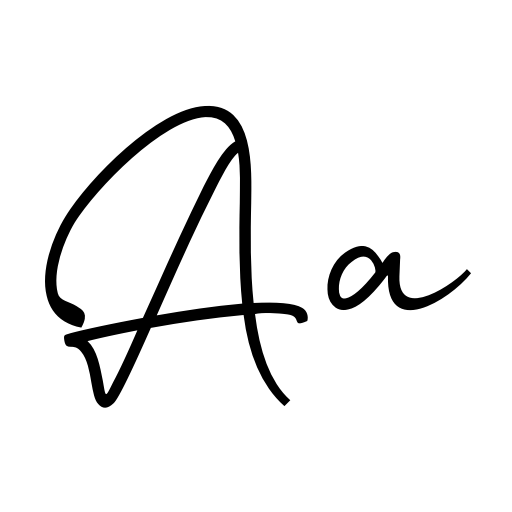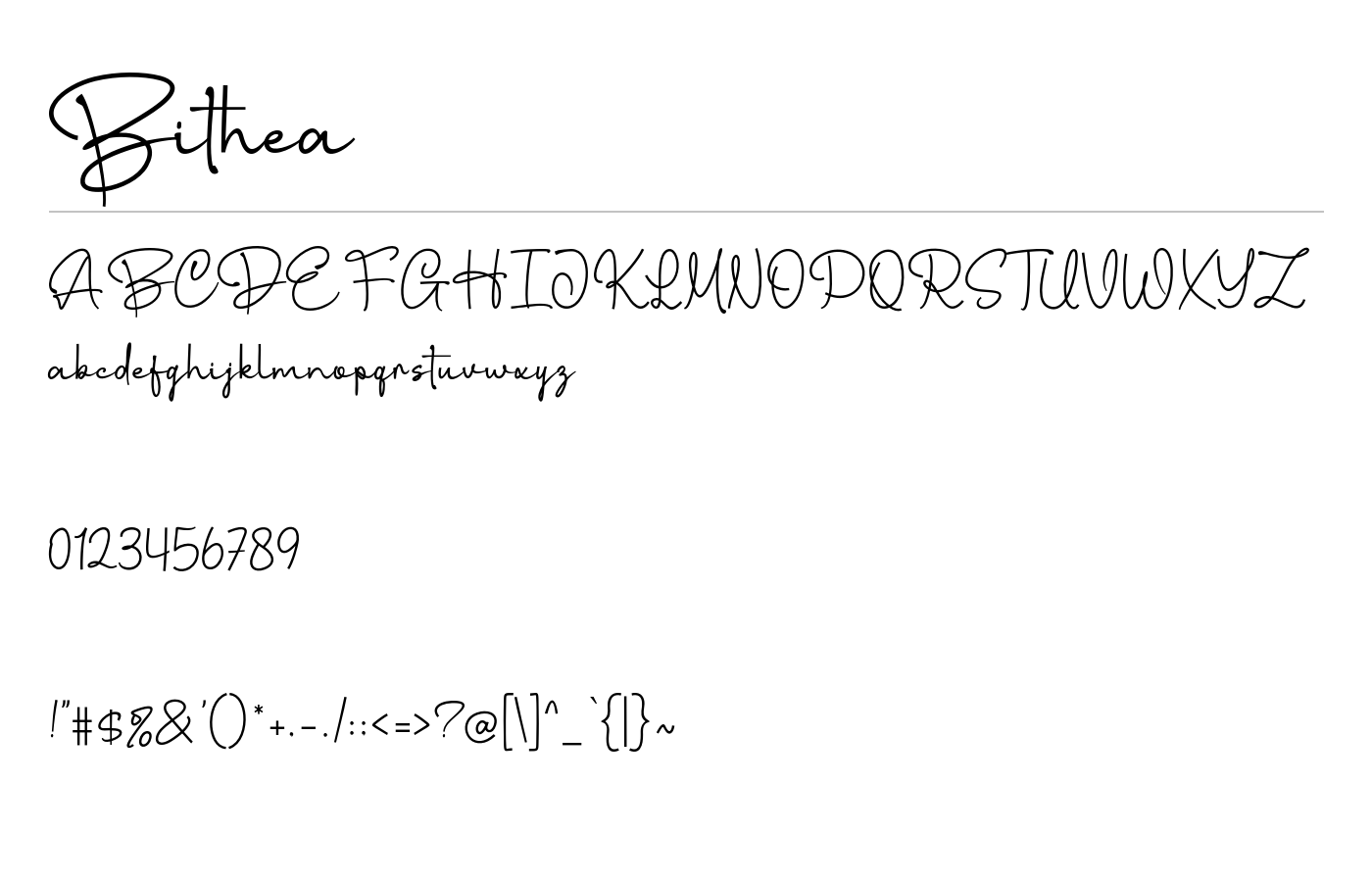
Bithea is a delicate and elegant handwritten script font characterized by its smooth, flowing strokes and casual yet refined style. Its light weight and airy letterforms make it perfect for adding a personal and sophisticated touch to invitations, branding, and editorial design, conveying warmth and creativity while maintaining readability. This font works beautifully for projects that seek a friendly, modern, and artistic feel.
Bithea Font
About Bithea Font
| Designer | Suzuran |